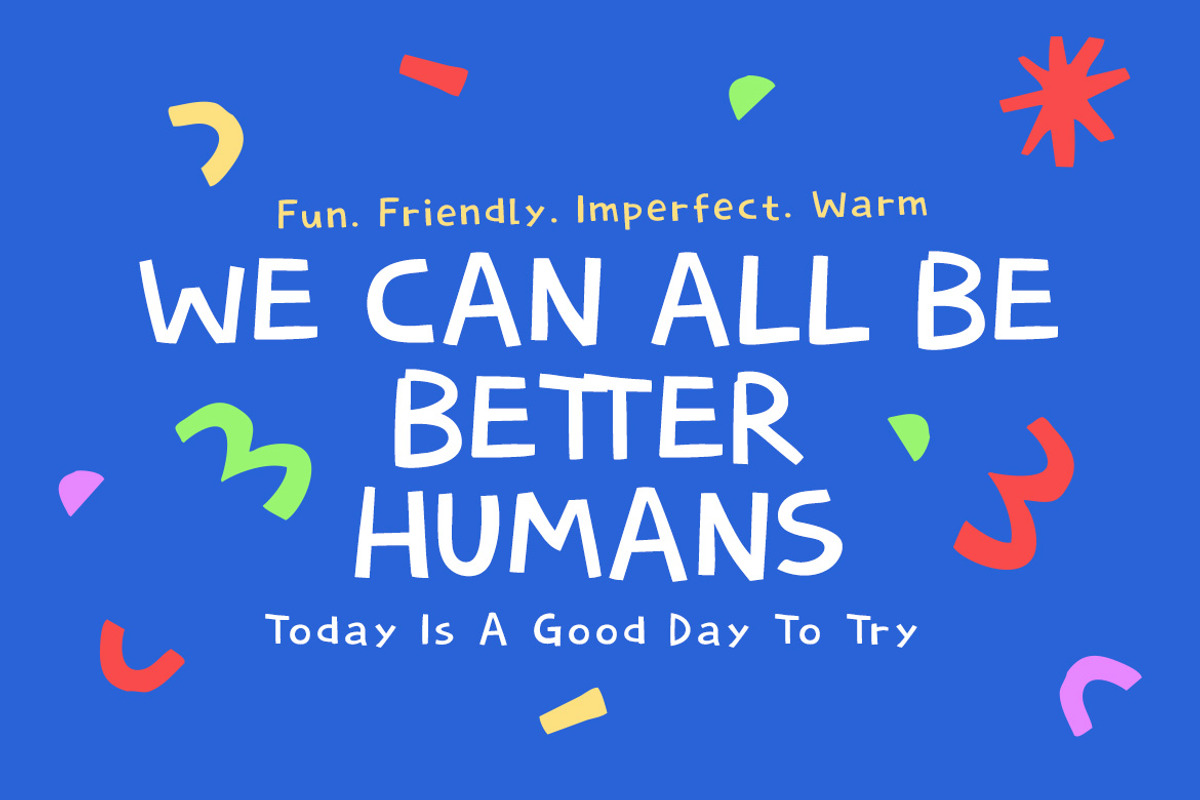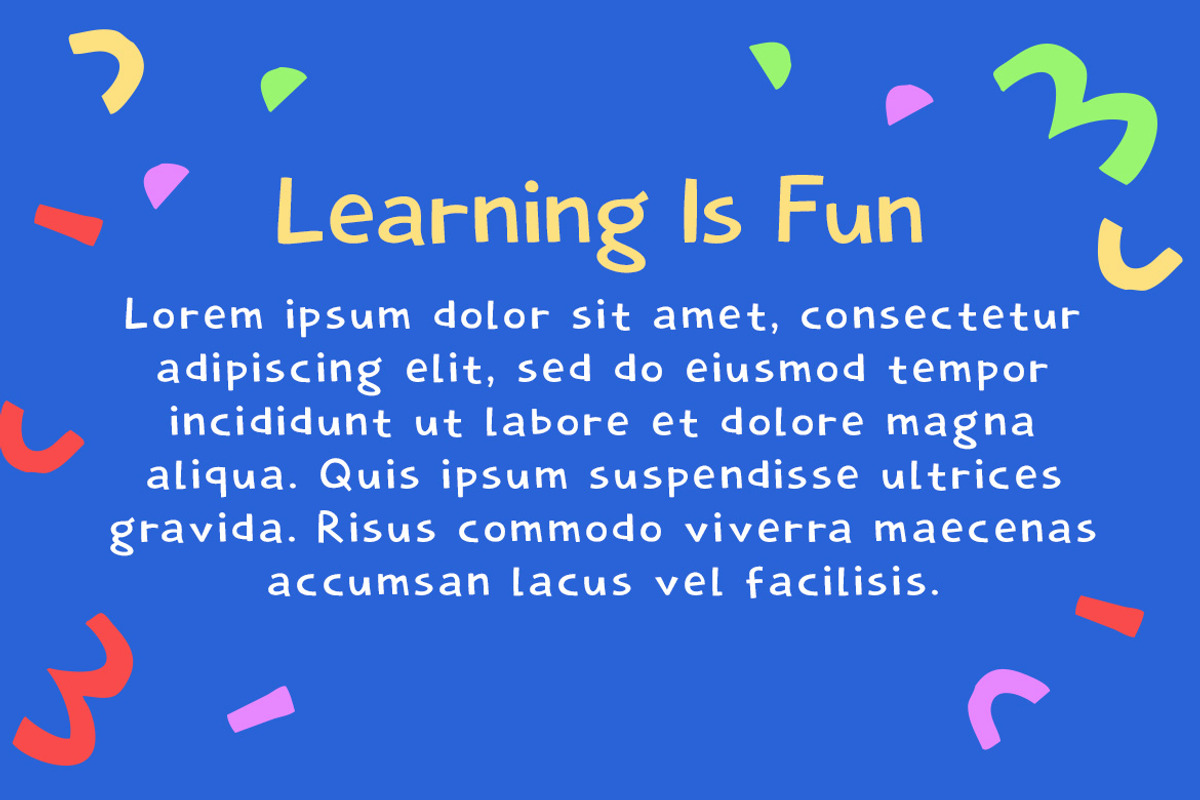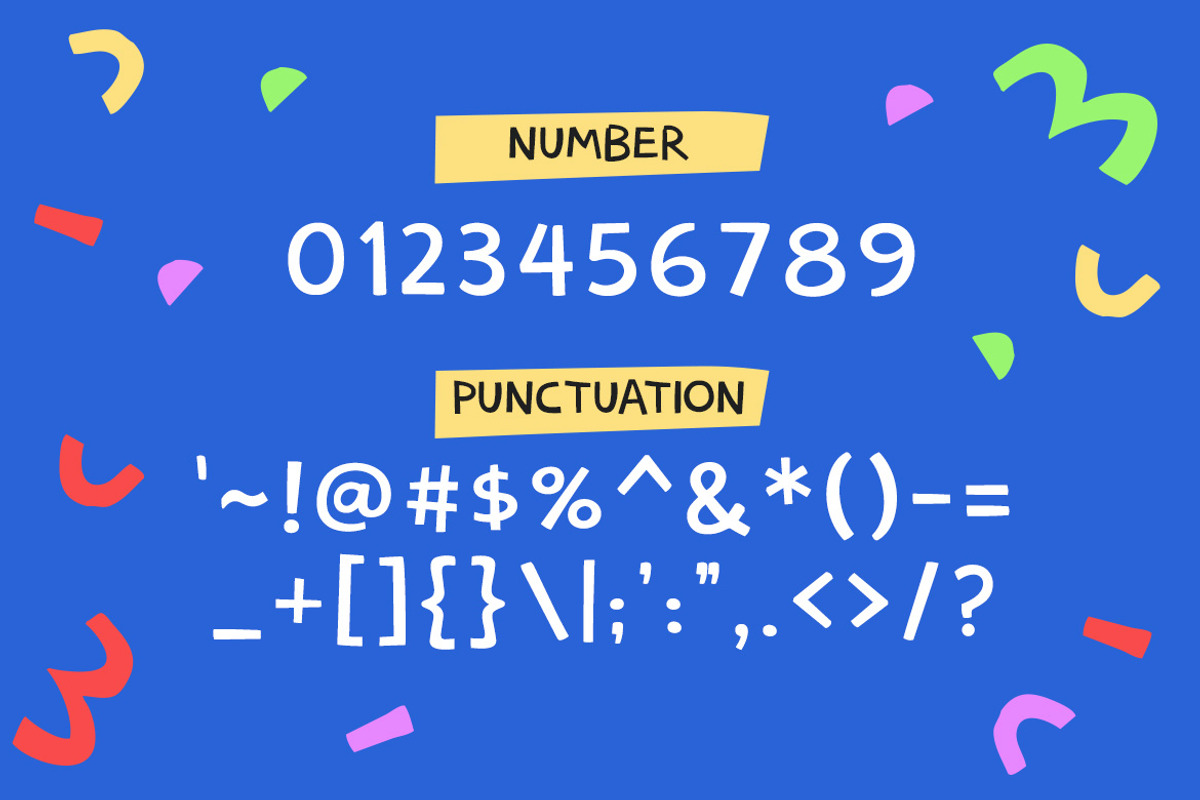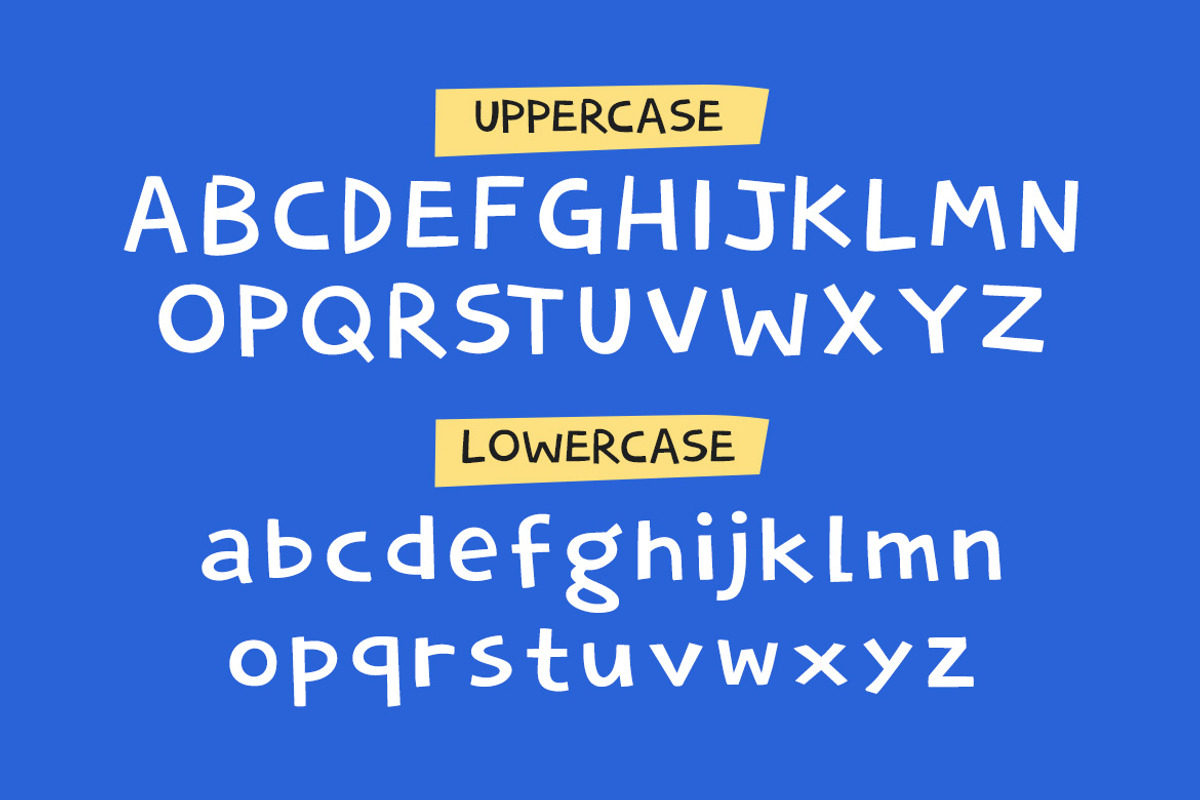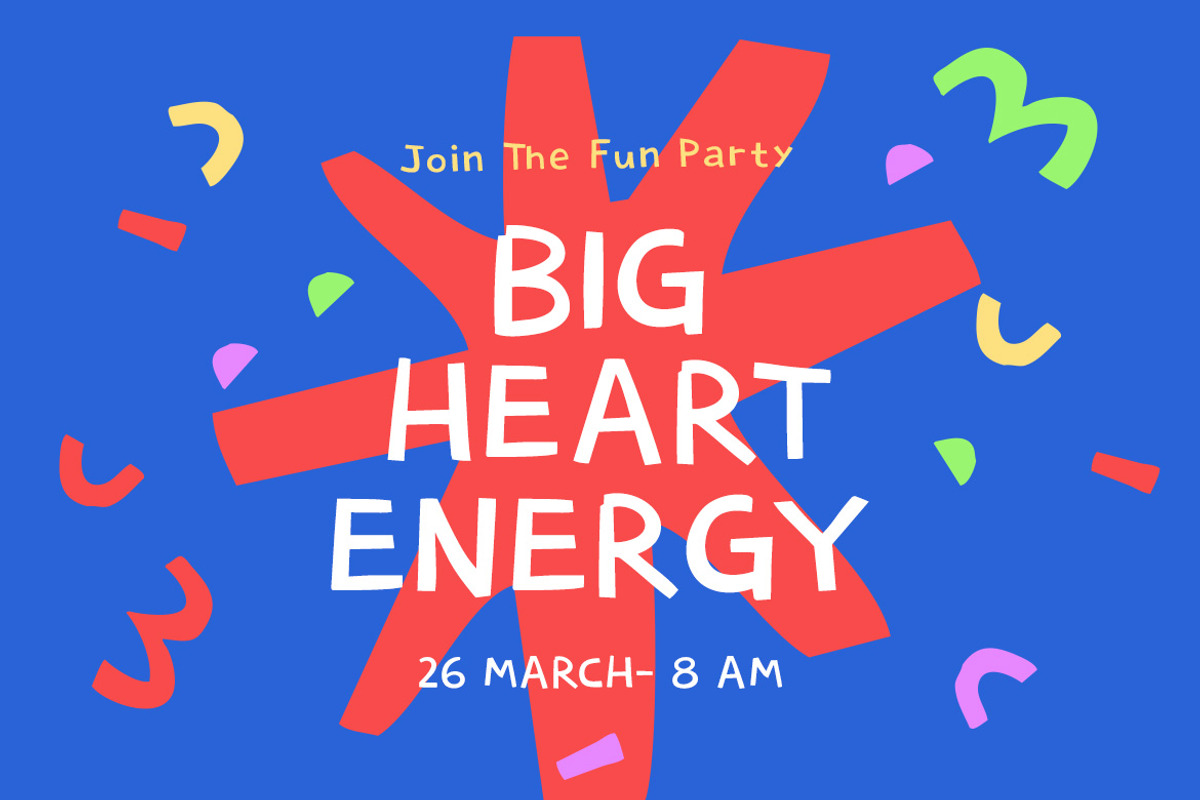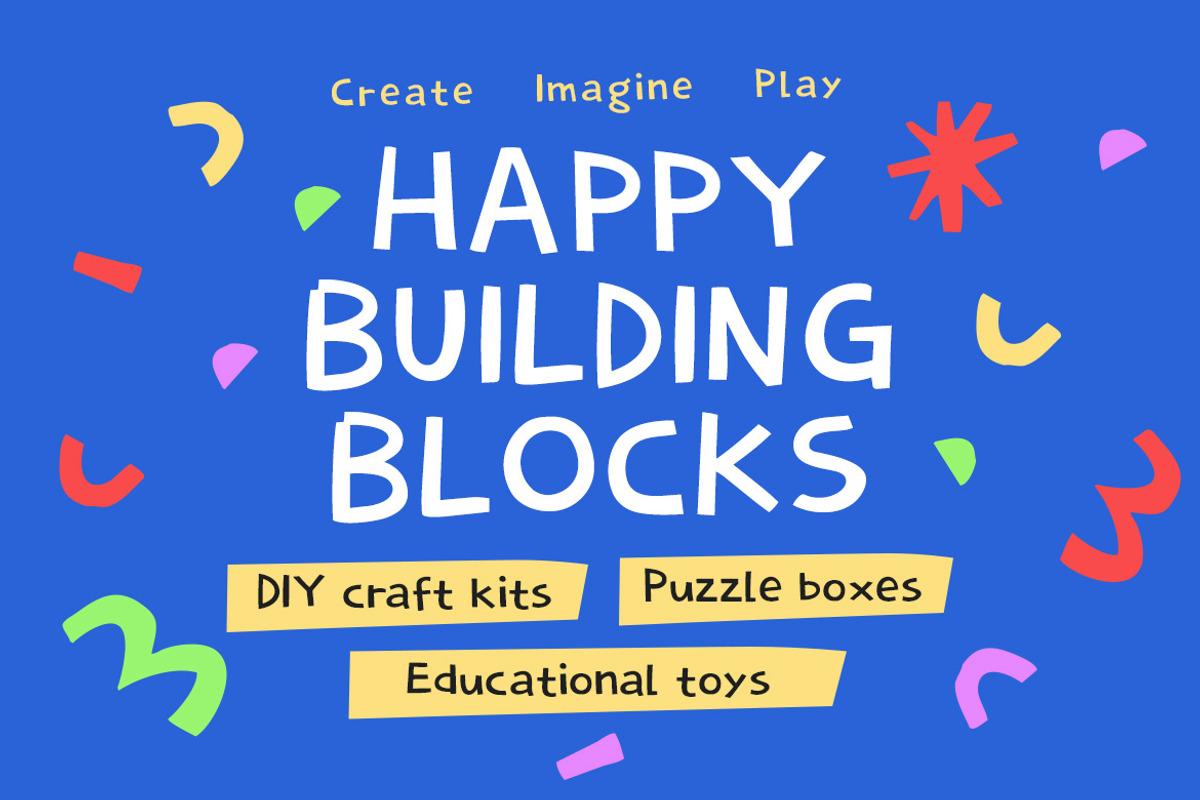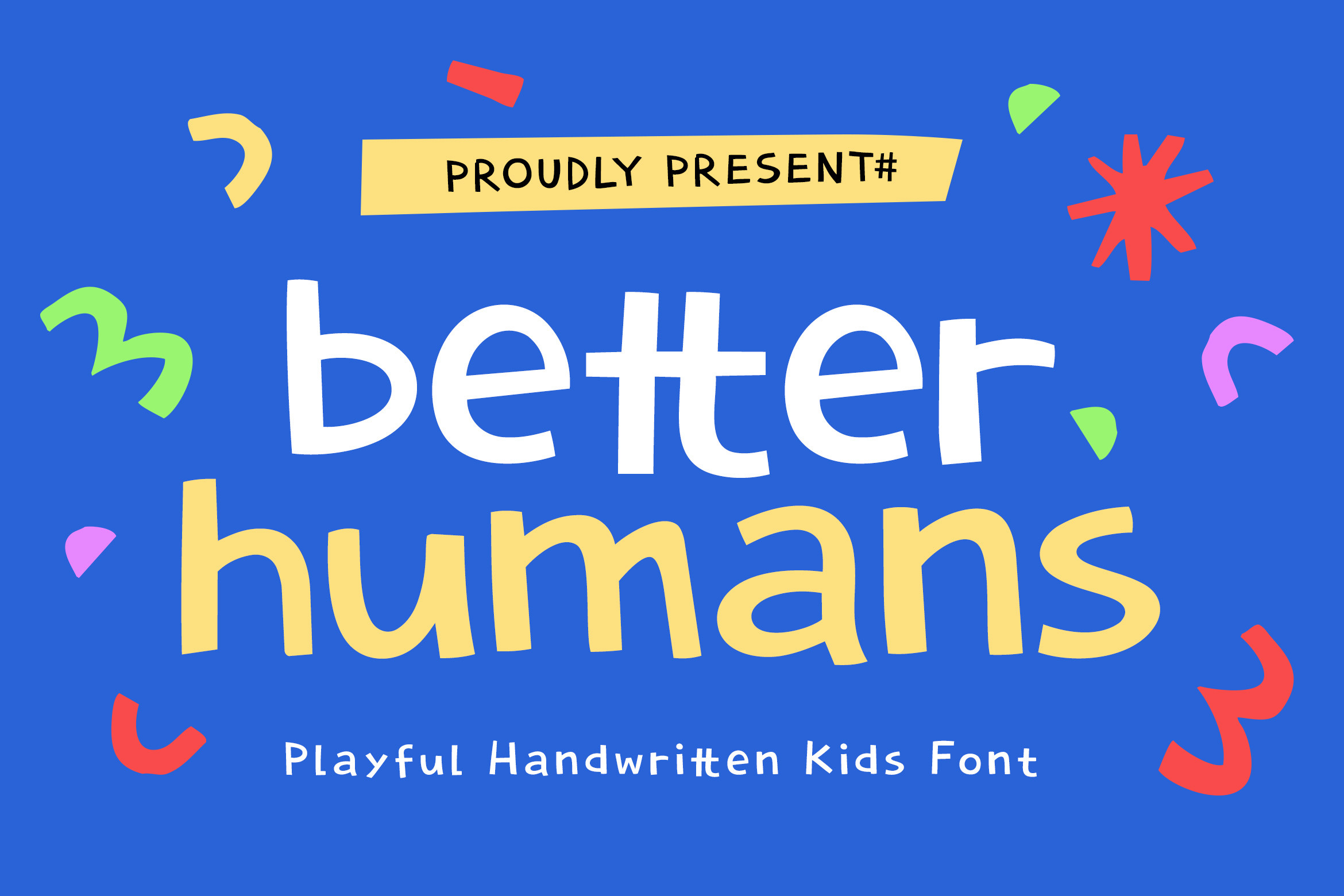
Better Humans – Playful Font
Better Humans is a cheerful handwritten kids font that radiates positivity, simplicity, and playful charm through its clean, rounded strokes and naturally imperfect letterforms. Designed with a friendly and approachable feel, this typeface blends childlike innocence with modern clarity, making it perfect for educational materials, children’s books, school branding, posters, apps, and fun digital content. Its soft shapes and lively personality create a warm and engaging visual tone, helping your designs communicate joy, creativity, and a sense of kindness that truly connects with young audiences and beyond.
:FEATURES:
- Smooth Kerning